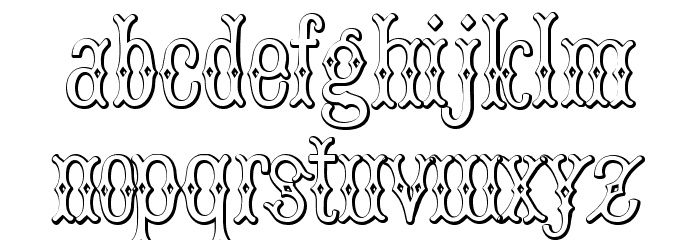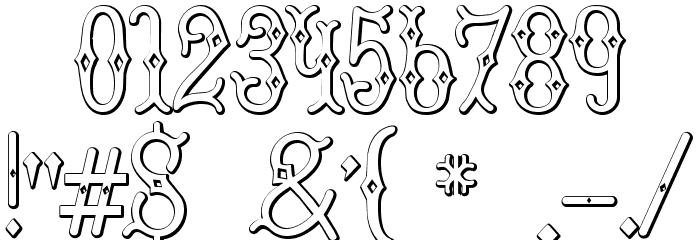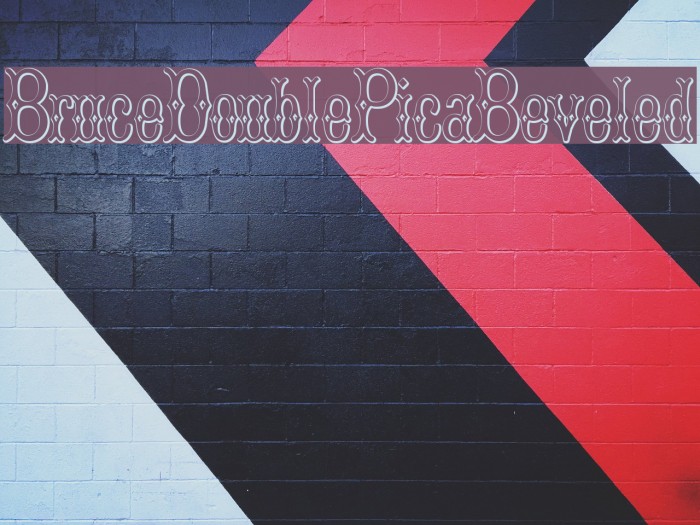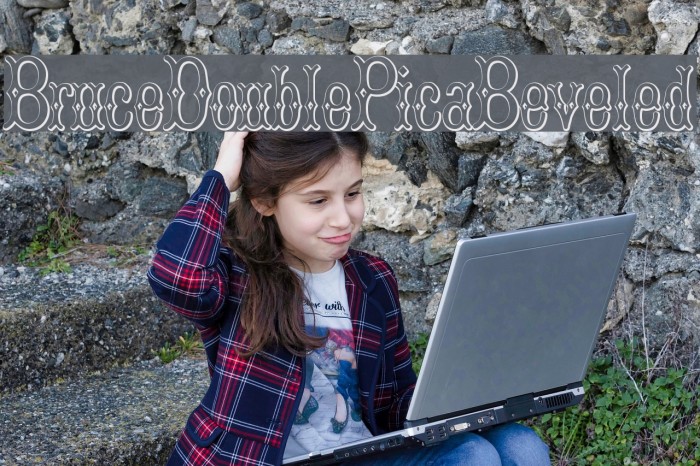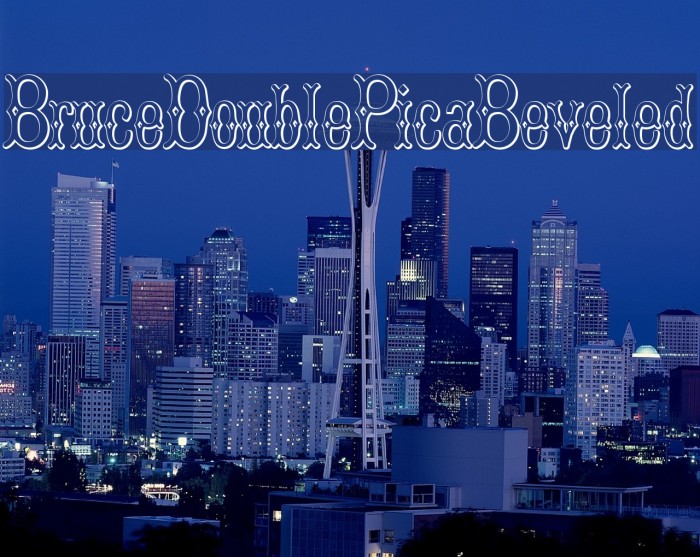
BruceDoublePicaBeveled Font
This font features a highly decorative and ornate style, characterized by its bold, beveled edges and intricate detailing. The uppercase letters are particularly elaborate, with flourishes and embellishments that give them a vintage, almost Victorian feel. The lowercase letters, while slightly less ornate, maintain the same level of detail and complexity. The numbers and special characters are equally decorative, making this font ideal for projects that require a touch of elegance and sophistication. The overall appearance is striking and eye-catching, making it suitable for use in headlines, logos, and other design elements where a strong visual impact is desired.
An ornate, decorative font with bold, beveled edges and intricate detailing.
- Proposed Projects: Ideal for vintage-themed designs, wedding invitations, logos, and decorative headlines.
- Overall Style: Vintage
- Use Case: Headlines, Logos, Decorative elements